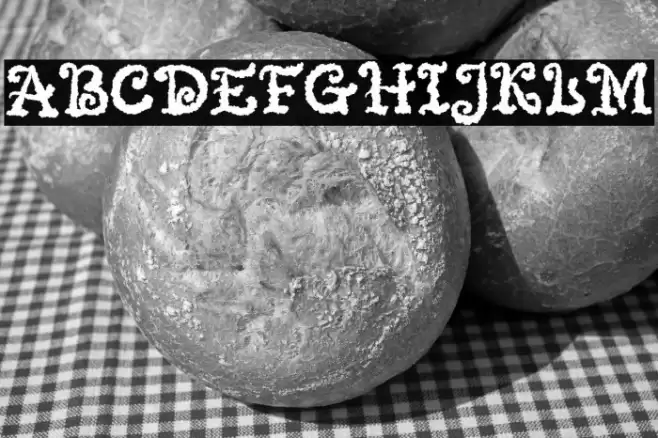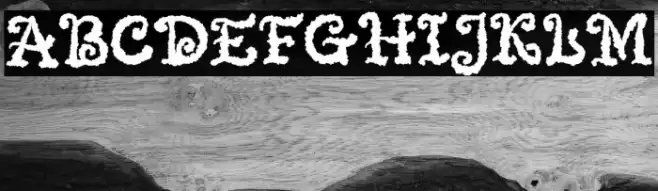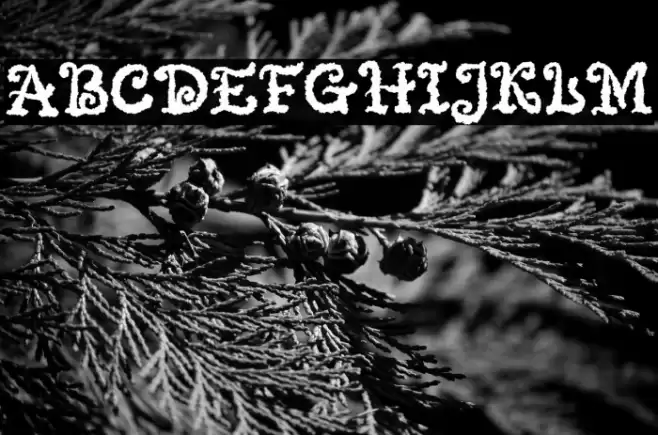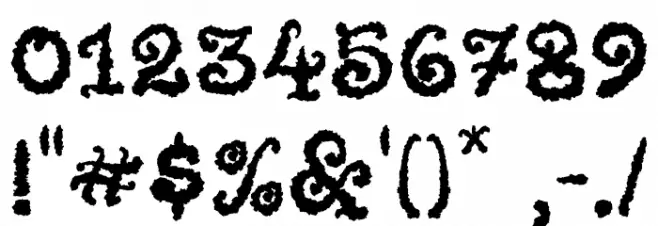
Quickly Magic Font
Quickly Magic Description
This font features a whimsical and playful design with a distinctly decorative style. Each character is adorned with unique, curly embellishments that give it a magical and enchanting appearance. The strokes are bold and consistent, creating a strong visual impact. The characters are well-spaced, allowing for easy readability despite their intricate design. This font is perfect for projects that require a touch of fantasy or a playful, artistic flair. Its unique style makes it suitable for creative and imaginative applications.
A whimsical, decorative font with curly embellishments and bold strokes from Uncategorized fonts.
- Font: Quickly Magic
- Proposed Projects: Ideal for fantasy-themed posters, children's book covers, playful branding, and artistic invitations.